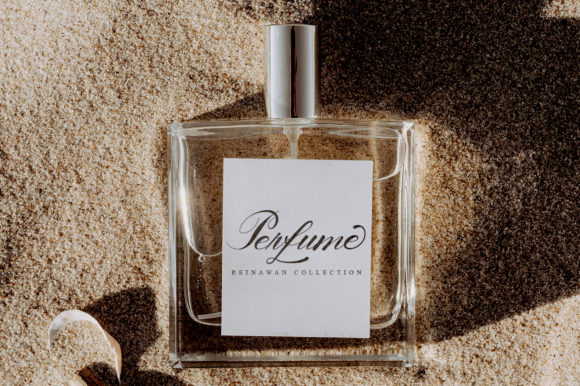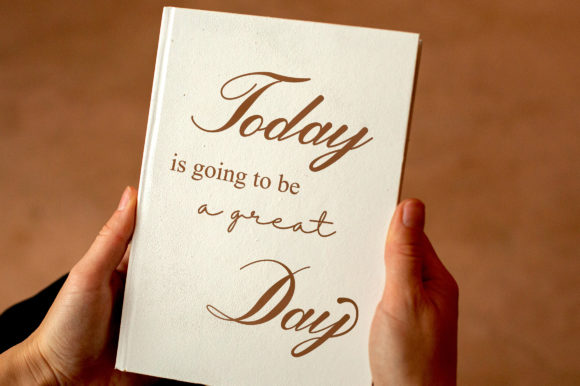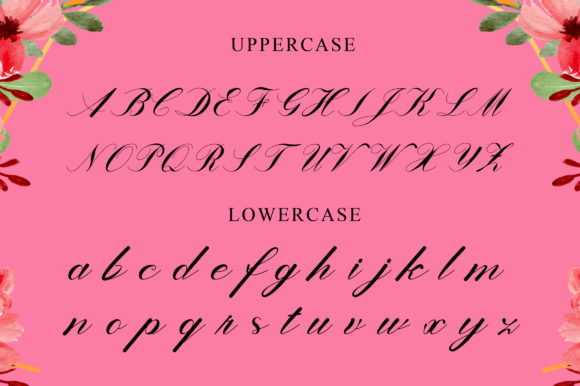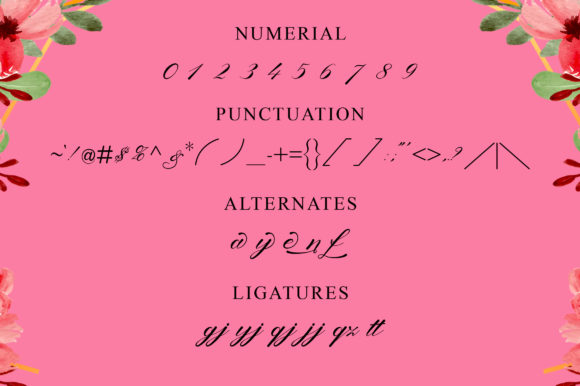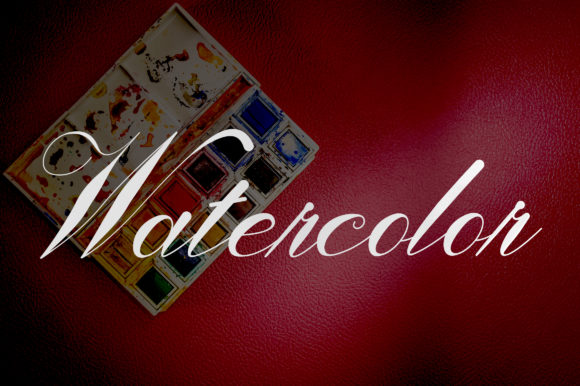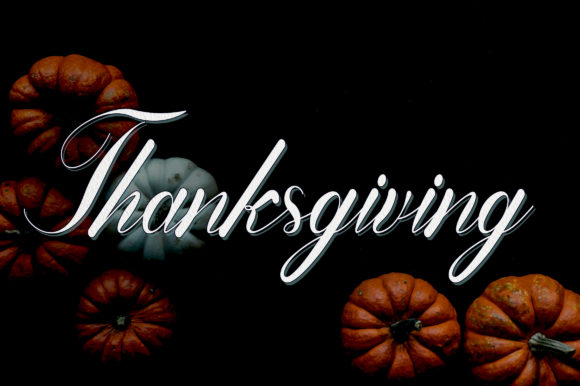
Introduction to Lanita Font
As a designer, there’s nothing quite like the thrill of bringing a creative project to life. You’ve poured your heart and soul into every detail, from the initial concept to the final flourish. And then, just as you’re about to hit publish, you stumble upon the perfect font – one that elevates your design from good to great. For many of us, that font is Lanita Font, a stunning handwritten typeface that embodies the perfect blend of classic calligraphy and modern flair.
Lanita Font
- High-quality design resource ideal for creative projects, offering a unique and stylish touch.
- Unique characteristics include its elegant script style and versatility in various design applications.
Honest Review: Lanita Font
I recently came across the Lanita Font, and I must say it’s a great addition to any designer’s toolkit. The font is perfect for a high-quality, creative project where you need a unique and stylish look.
- ✨ The font’s elegant and sophisticated design makes it perfect for formal and business-related projects.
- ⚠️ The font may not be suitable for projects that require a bold or playful look.
Tips for Getting the Most Out of Lanita Font
For a creative project, use Lanita Font in combination with other design elements to create a visually appealing design. Experiment with different font sizes and styles to add depth and interest to your design.
Lanita Font is ideal for designing logos, brochures, business cards, and other marketing materials. It’s also a great choice for creating a consistent brand identity across multiple platforms.
Is Lanita Font suitable for print or digital use?
Lanita Font is suitable for both print and digital use. The font’s high quality and clear typography make it ideal for a range of applications, including business cards, brochures, and digital displays. Its versatility and readability ensure that it performs well in both print and digital formats.